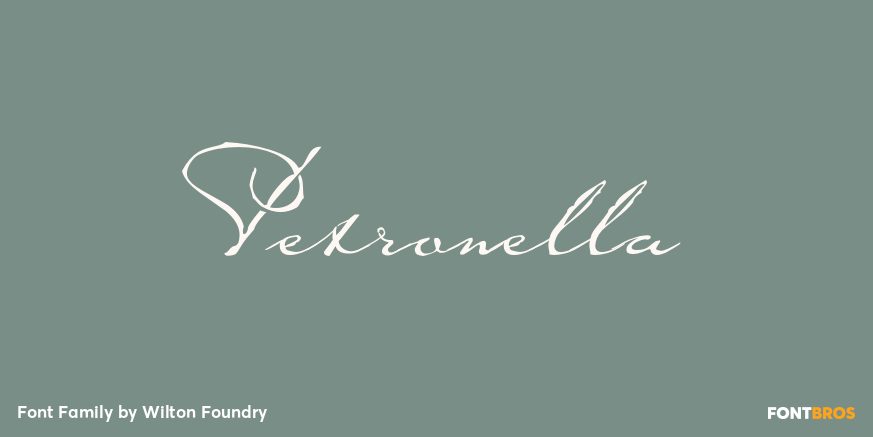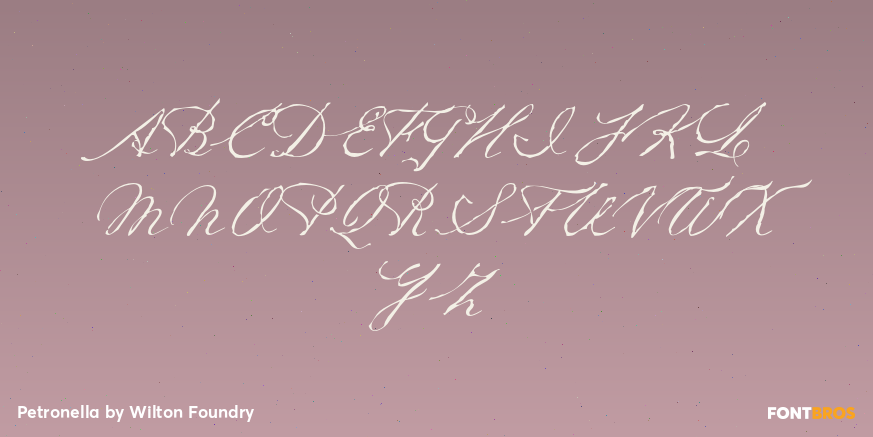
Petronella
Font Family by Wilton Foundry
Buy NowPetronella was inspired by the writing of several members of my family in Holland who wrote daily journals to each other during World War II. While it is impossible to recreate someone's handwriting, this font is an attempt to capture all the unique and stylish characters that were written with such sure strokes and amazing flare. I hope you enjoy this font as much as I had fun recreating it!